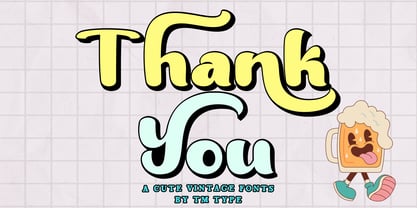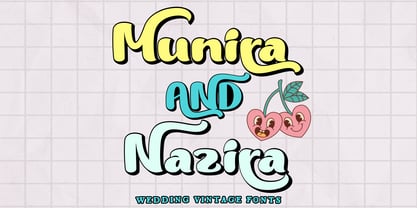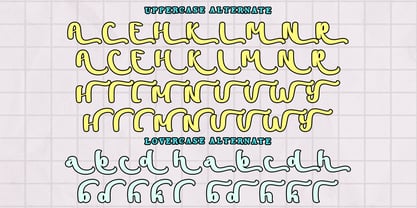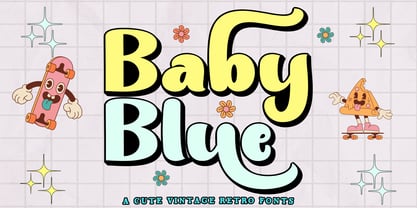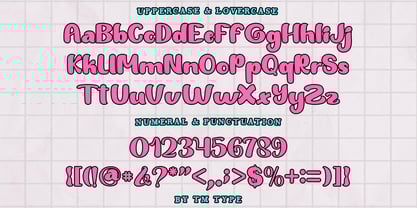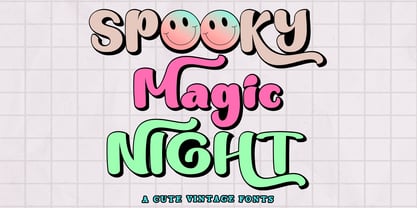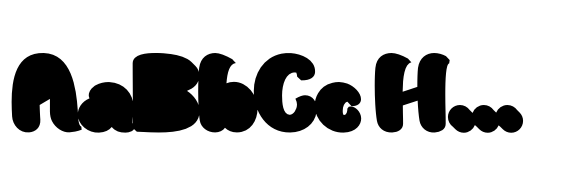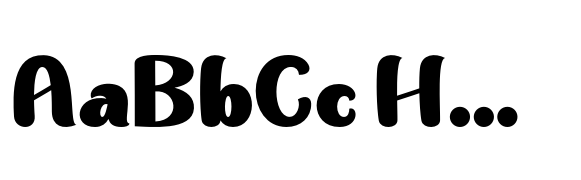
Baby Blue
by TM Type
The Baby Blue Font Family was designed by Teuku Bustami and published by TM Type. Baby Blue contains 2 styles and family package options. More about this family
Say hello to new serif font, Baby Blue!
Baby Blue is a display serif font that delivers a classic retro feel with strength and boldness. Characterized by striking bold letters, Baby Blue exudes elegance and uniqueness in every detail. Its retro-inspired design evokes nostalgia and conveys a strong and charming style.
Baby Blue lettering proportions are audacious in their clarity and legibility. With bold lines and strong contours, each letter looks tough while retaining the elegance of a retro aesthetic. Consistent letter thickness provides an appealing visual appeal and is easily recognizable.
Baby Blue is suitable for use in various design projects that want a strong retro classic impression. This font makes a perfect choice for headlines, titles, posters, merchandise designs, and more. In any context, Baby Blue carries an impressive presence, inviting the audience to feel nostalgia for a different era.